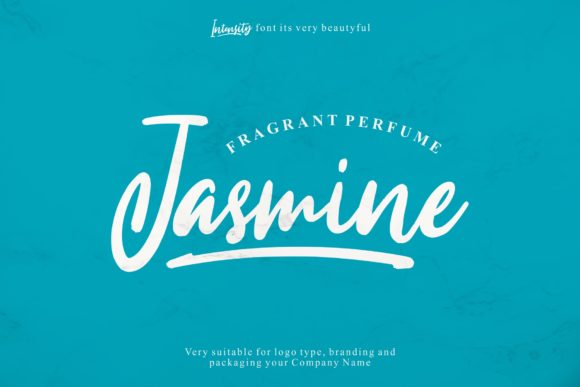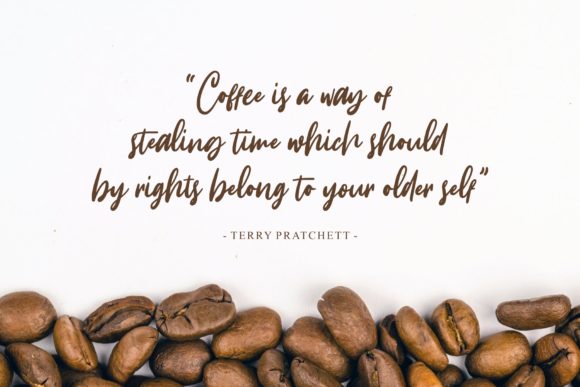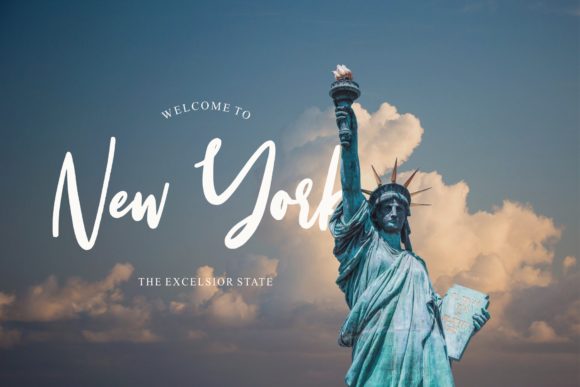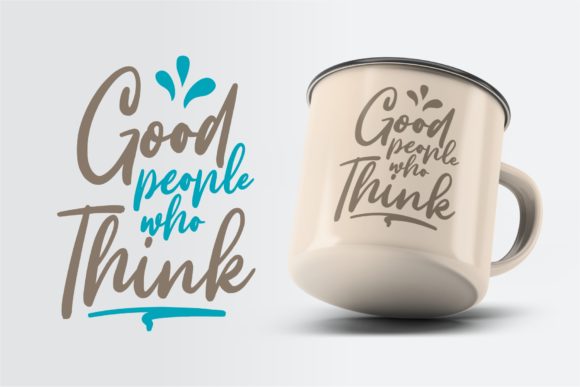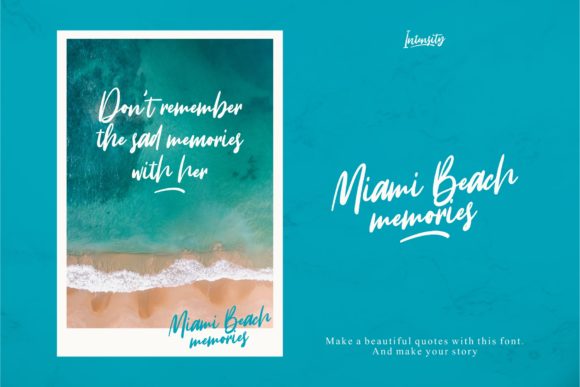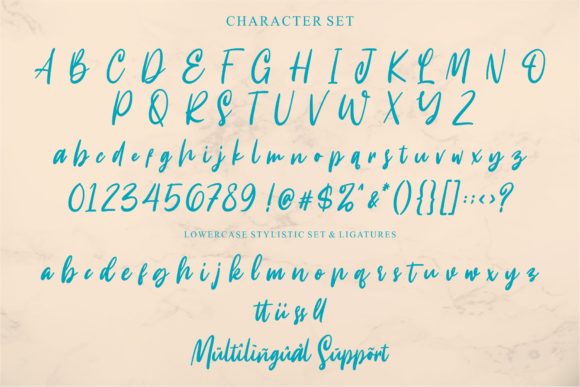
Unleashing Your Inner Creativity with Intensity Font
Have you ever been working on a creative project and just can’t seem to find the right font to match your vision? The struggle is real, but fear not, designers! Today, we’re going to explore a game-changing font that’s sure to take your designs to the next level: the Intensity Font.
This lovely and fun handwritten font with a bold twist is the perfect addition to any design project. With its unique feel, you’ll be able to add a touch of personality to your work and make it truly stand out from the crowd. Whether you’re working on a project with a transparent background or need a high-quality font for your next design resource, the Intensity Font is an excellent choice.
Key Features of Intensity Font
- High-quality vector font designed for creative projects, ensuring crisp and clear typography.
- Unique and bold design with a transparent background, making it easy to customize and use in different design applications.
- Designed to be a versatile design resource, suitable for a variety of creative projects, from logos and branding to advertising and editorial content.
Honest Review: Intensity Font
The Intensity Font has a very unique and striking appearance, making it perfect for use on a transparent background or as a bold accent in your designs. I was particularly impressed by the range of styles and weights available, which allows for a lot of creative flexibility.
Here are some of the things that work well with the Intensity Font:
- High-quality design: The font is crisp and clear, with a professional finish that’s perfect for commercial use.
- Unique style: The Intensity Font has a distinctive look that sets it apart from more generic fonts.
- Limited character set: The Intensity Font only includes a basic set of characters, which may limit its use in certain contexts.
- Not suitable for all designs: The font’s bold, striking appearance may not be suitable for all design projects, particularly those that require a more subtle look.
Overall, I’m impressed with the Intensity Font, and I think it’s a valuable addition to any designer’s toolkit. While it may have some limitations, its unique style and high-quality design make it a great choice for the right projects.
Tips for Getting the Most Out of Intensity Font
For the best results, use the Intensity Font on a transparent background to create a high-quality design. You can also combine it with other design resources, such as graphics and images, to create a unique and creative project.
The Intensity Font is ideal for designing eye-catching headlines, titles, and other text elements for your creative project. You can also use it to create a free download or a design resource for your clients or audience.